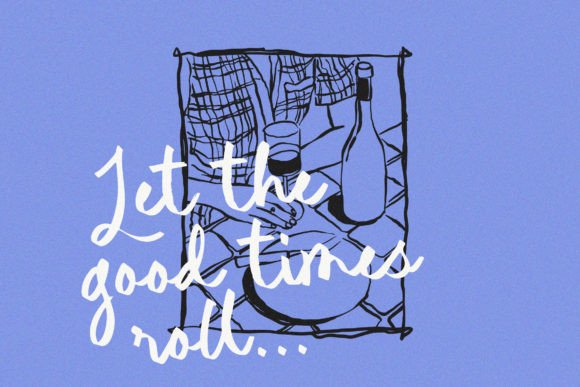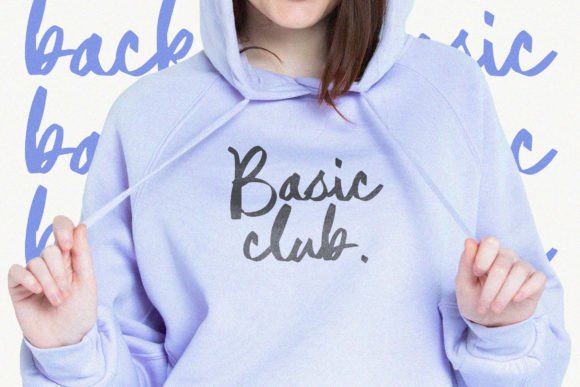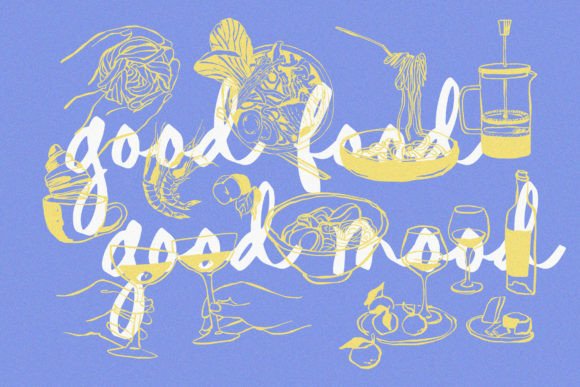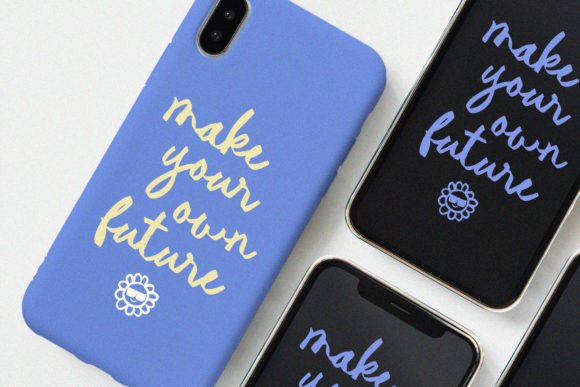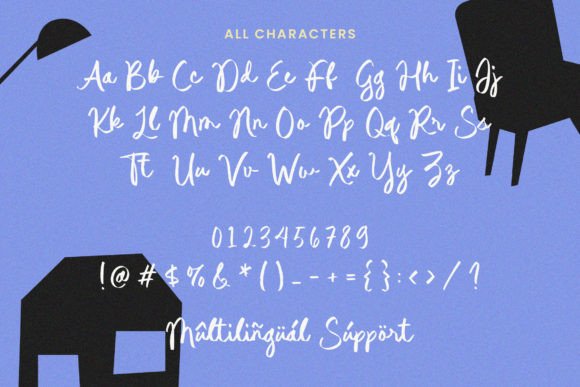
Introducing Fortune Taylor Font: Elevate Your Designs with Elegance and Personality
In the world of typography, a font can make or break the aesthetic of a design project. For those seeking a modern, charming, and elegant handwritten font, look no further than Fortune Taylor. This beautiful font is designed to exude sophistication and personality, making it perfect for upscale invitations, personal branding, and chic editorial designs.
The Characteristics of Fortune Taylor Font
Fortune Taylor Font is a modern handwritten font that boasts graceful, flowing strokes and a sophisticated character. Its refined allure and warmth make it an ideal choice for designers and crafters looking to add a touch of elegance to their projects. The font’s charming and whimsical feel is balanced by its polished and refined appearance, making it versatile enough to be used in a variety of design applications.
Perfect for Upscale Invitations and Personal Branding
When it comes to creating upscale invitations, personal branding, and editorial designs, the font used can make a significant impact. Fortune Taylor Font is specifically designed to elevate these types of projects with its refined and sophisticated appearance. Its elegant strokes and charming character make it perfect for:
• Personal branding and logos
• Editorial designs, such as magazine covers and articles
• Packaging design and product labels
Why Choose Fortune Taylor Font?
With so many fonts available, why choose Fortune Taylor Font? Here are just a few reasons why designers and crafters love this beautiful font:
• Unique and eye-catching: Fortune Taylor Font is a one-of-a-kind font that is sure to grab attention and make your designs stand out.
• Elegant and sophisticated: The font’s refined allure and warmth make it perfect for upscale designs and projects.
• Versatile: Fortune Taylor Font can be used in a variety of design applications, from invitations and branding to editorial designs and packaging.
• Easy to read: The font’s clear and flowing strokes make it easy to read, even at small sizes.
Tips for Using Fortune Taylor Font
To get the most out of Fortune Taylor Font, here are a few tips to keep in mind:
• Use it as a headline font: Fortune Taylor Font is perfect for headlines and titles, where its elegant and sophisticated appearance can shine.
• Pair it with a sans-serif font: For body text, pair Fortune Taylor Font with a clean and simple sans-serif font to create a beautiful contrast.
• Experiment with colors: Fortune Taylor Font looks beautiful in a variety of colors, from rich jewel tones to soft pastels.
• Don’t be afraid to get creative: Fortune Taylor Font is a versatile font that can be used in a variety of design applications, so don’t be afraid to experiment and try new things.
In conclusion, Fortune Taylor Font is a modern and charming handwritten font that is perfect for designers and crafters looking to add a touch of elegance and personality to their projects. Its refined allure and warmth make it ideal for upscale invitations, personal branding, and chic editorial designs. With its unique and eye-catching appearance, versatility, and ease of use, Fortune Taylor Font is a must-have font for any designer or crafter looking to elevate their designs.